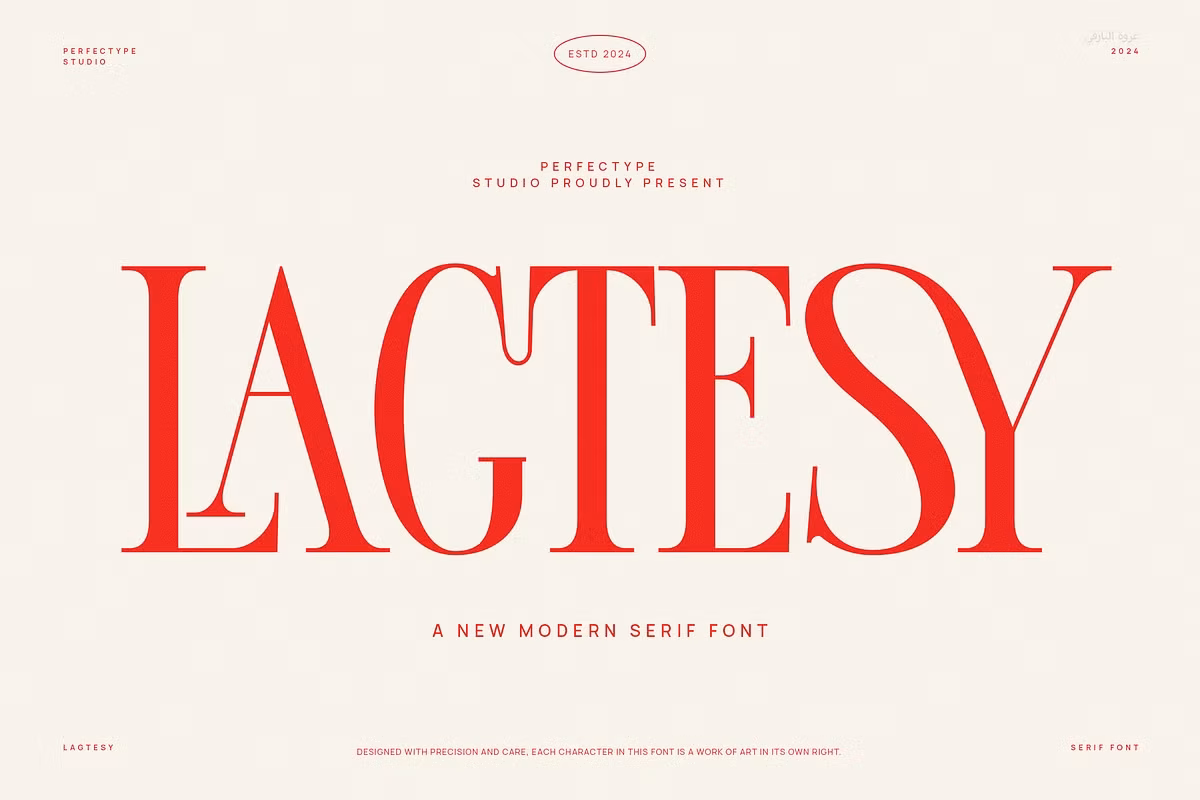
You must purchase this font for commercial use. However, you can download Lagtesy Elegant Serif Font Free Download for testing purposes. Lagtesy is a sophisticated and refined serif font designed with elegance and timeless appeal. Its high contrast strokes and beautifully crafted serifs make it perfect for luxury branding, editorial layouts, wedding invitations, fashion magazines, and other upscale design projects.
With its clean lines, classy letterforms, and refined details, Lagtesy Elegant Serif Font brings a touch of professionalism and high-end appeal to any project. Whether you’re creating an elegant logo, working on a chic editorial design, or designing premium product packaging, this font adds a timeless, stylish element to your work.